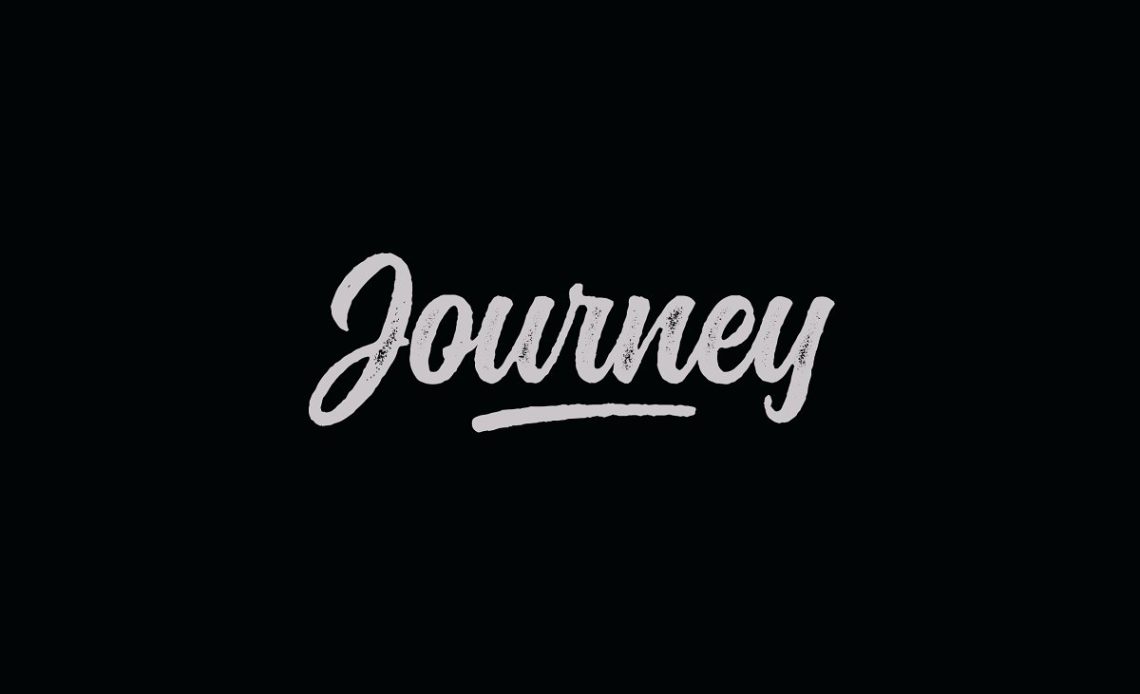
Are you on the hunt for the perfect font for your next project? Look no further than Montana Typeface! This incredible script font, created by Hermansyah and designed by Alex Couture, is the ultimate choice for anyone looking for a cool and eye-catching font for their Latin tattoos.
Montana Typeface offers both a clean and rough style, as well as a smooth version, giving you a range of options to choose from. This brush typeface has personality, making it the perfect choice for a logo, badge, insignia, packaging, headline, poster, t-shirt, apparel, greeting card, or even a wedding invitation.
But Montana Typeface isn't just beautiful, it's also incredibly versatile. The flowing characters make it ideal for creating attractive messages, and the alternative characters included in the font allow you to mix and match to fit your project perfectly. These alternative characters are divided into several OpenType features, such as Stylistic Alternates, Stylistic Sets, and Ligatures, which can be accessed using OpenType programs like Adobe Illustrator, Adobe Photoshop, and Adobe InDesign.